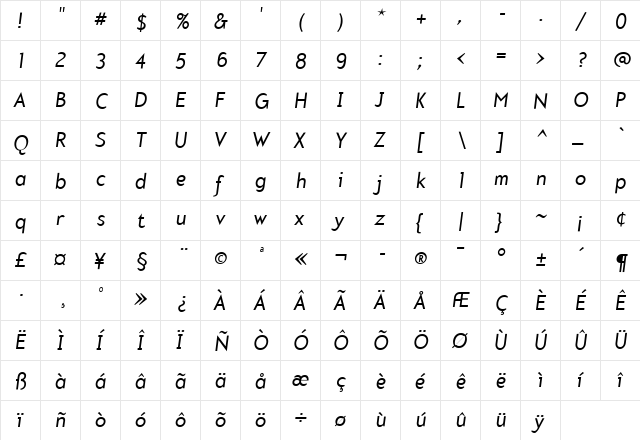
Mercury Italic Font Preview
Mercury Italic
Mercury Italic Font Details
Design Context for Mercury Typeface
Mercury is a composed and adaptable typeface that performs quietly and consistently across a wide range of design contexts. The dynamic lean of this cut emphasises speed and emphasis in any layout.
Pro Tip: Use Mercury for emphasis, pull quotes, and subheadings where its slanted energy can add rhythm to the layout.